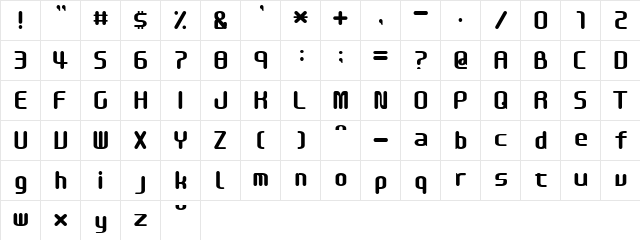
OIOI Normal
Design Context for OIOI Typeface
OIOI is a composed and adaptable typeface that performs quietly and consistently across a wide range of design contexts.